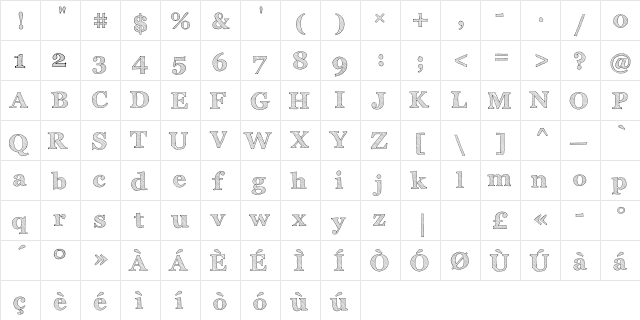
Archistico Normal
| Foundry | Archistico |
| Designer | Emilie Rollandin |
Design Context for Archistico Typeface
Archistico offers clean, dependable letterforms without strong stylistic allegiance, making it a practical choice for designers who need flexibility.